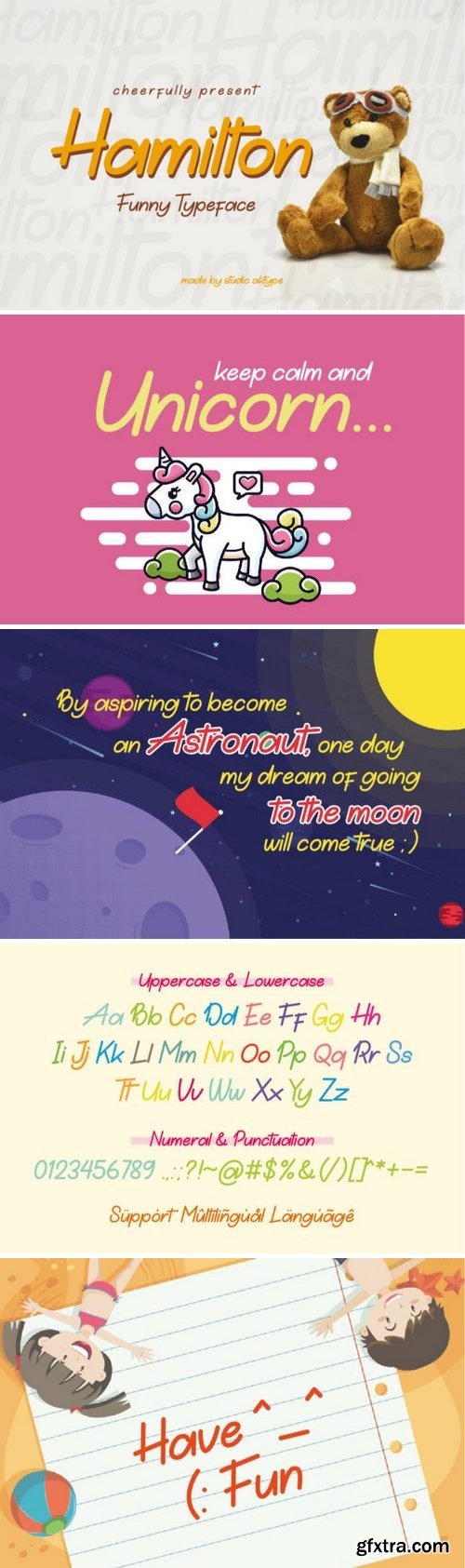
Fontbundles - Hamilton Funny Typeface 219931
This font is suitable for cheerful and funny designs, children's themes and cartoons. can be applied to the design of shirts, greeting cards, banners, photobooks, comics, and various other cute designs.